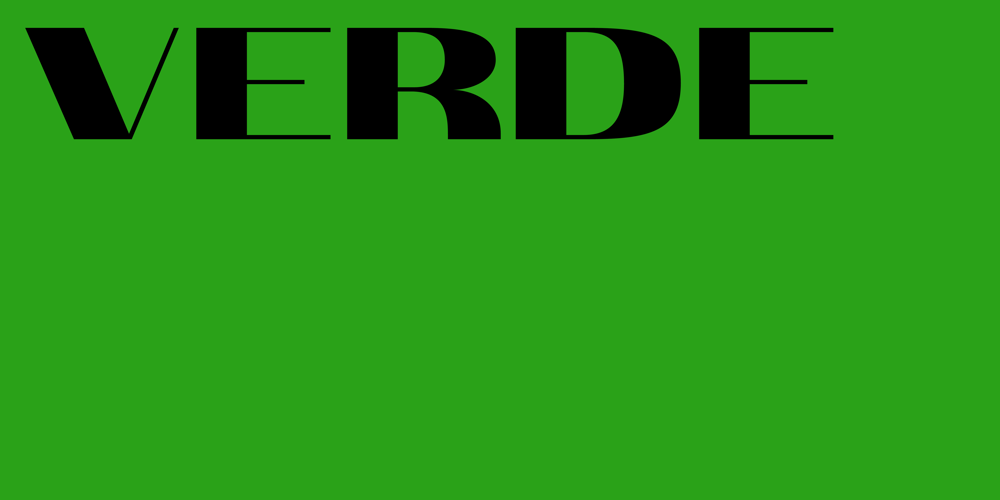
Ponzastura
Ponzastura font
Ponzastura Font Family was designed by Matyáš Bartoň and published by Matyáš Bartoň. Ponzastura contains 7 styles and family package options. Ponzastura typeface was inspired by Aldo Novarese’s Eurostile, but in this case, monolinear strokes took on contrast and stress. The classical appearance of Ponzastura, whose name is inspired by the Italian city Pontestura where A. Novarese was born, is more of a reaction and interplay. The character set supports most European languages and contains ligatures as well as symbols, figures and alternative characters. Its strength is in a simplicity and format; recommended for use in headlines or short sentences. Ponzastura typeface can fill in a gap of high-contrasted fonts of nowadays.